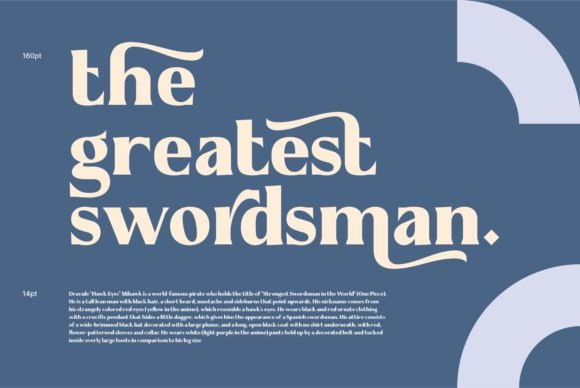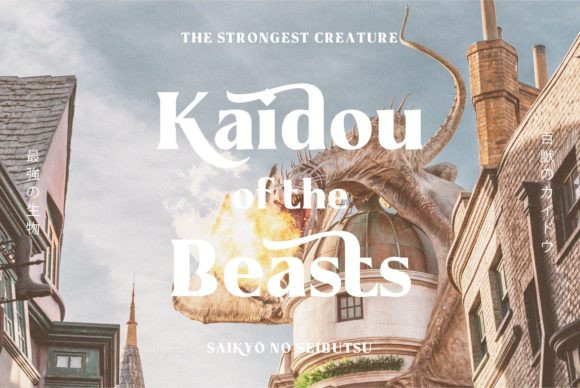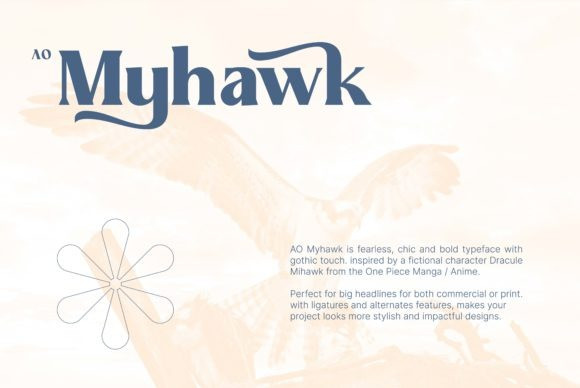
Myhawk Font
AO Myhawk is a fearless, chic, and bold typeface with a gothic touch. Inspired by a fictional character Dracule Mihawk from the One Piece Manga / Anime. Perfect for big headlines it will make your project look more stylish and impactful.